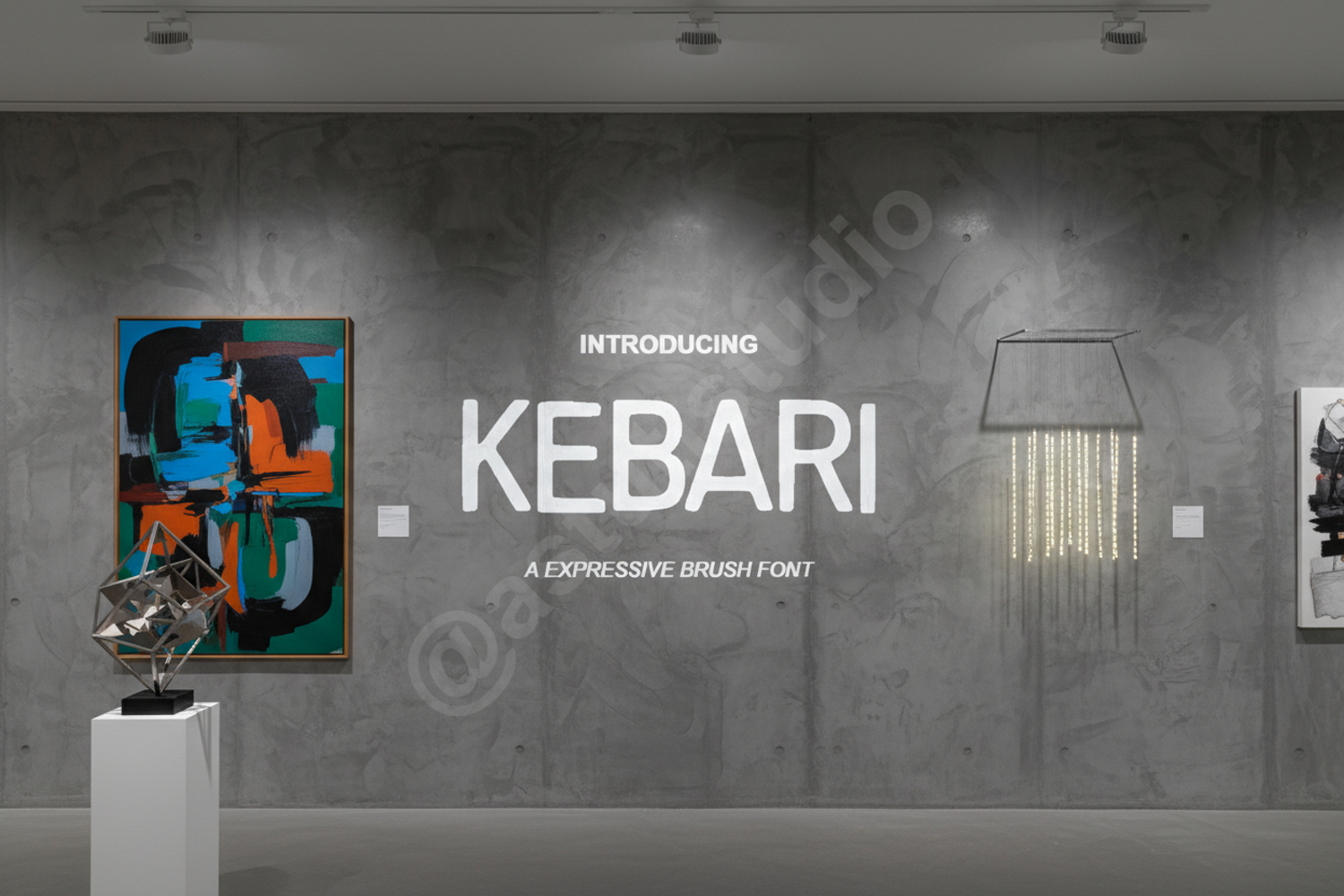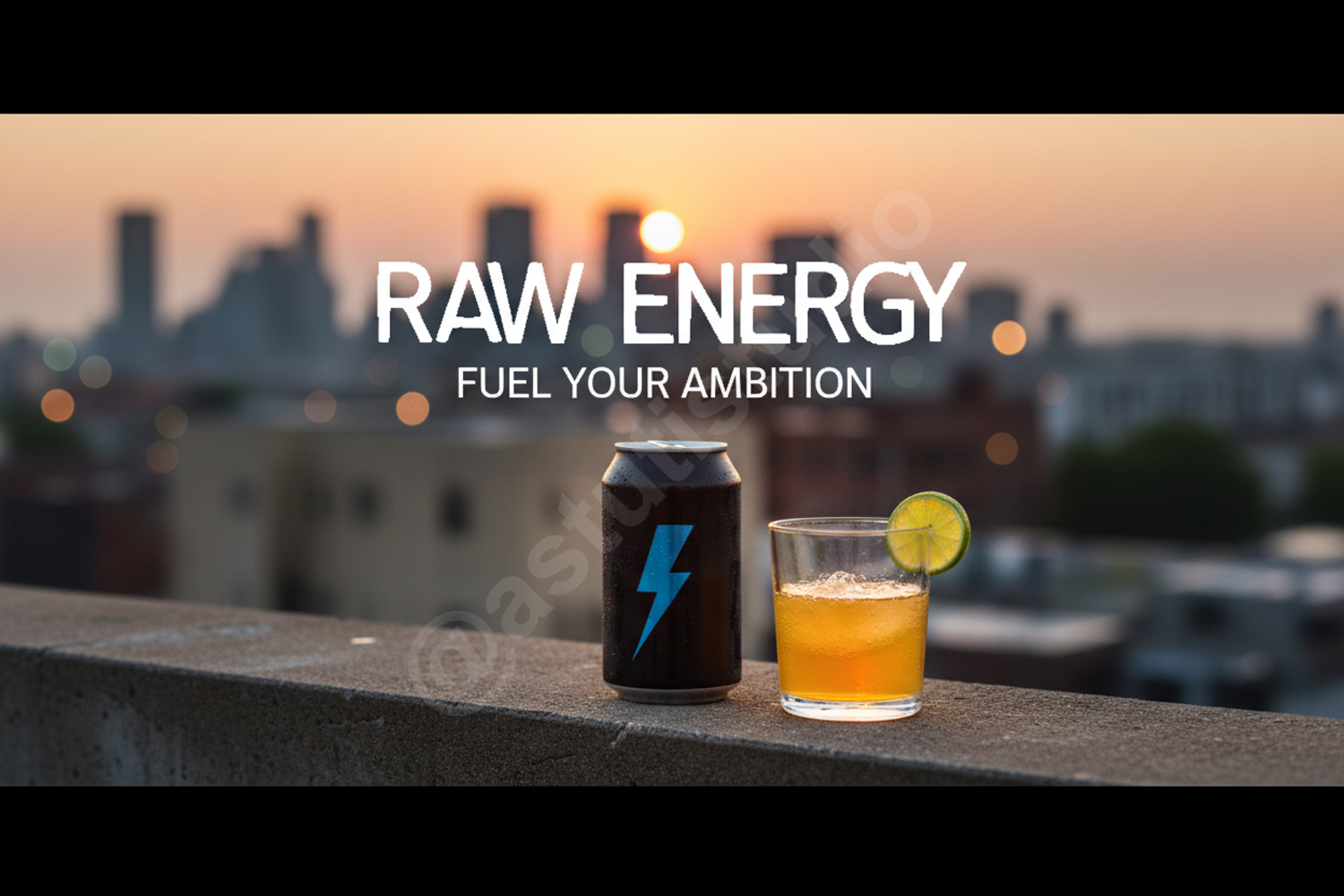
Kebari - Sophisticated Modern Serif Typeface
Kebari
Elevate your creative projects with Kebari, a premium modern serif font that seamlessly blends timeless elegance with contemporary flair. Meticulously crafted for clarity and high-end appeal, Kebari offers a sophisticated aesthetic that commands attention while remaining versatile enough for a wide range of design applications. Whether you are aiming for a minimalist look or a bold statement, this typeface provides the perfect balance of style and readability.
- Comprehensive set of uppercase and lowercase letters
- Numbers, punctuation, and essential symbols
- Multilingual support for global design reach
- Smooth lines optimized for high-resolution printing and digital displays
- Branding and Identity: Create memorable logos and brand marks that exude luxury and professionalism.
- Editorial Design: Perfect for high-end magazine layouts, book covers, and sophisticated headlines.
- Wedding Stationery: Add a touch of class to invitations, save-the-dates, and event menus.
- Digital Marketing: Enhance your social media graphics, website headers, and online advertisements.
- Product Packaging: Ideal for premium labels, retail packaging, and cosmetic branding.